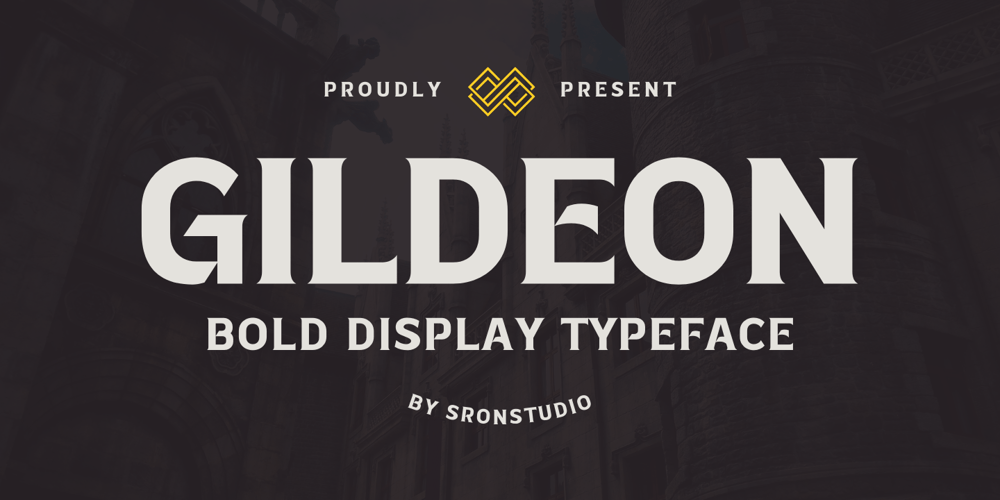
Gildeon Font Family was designed by Muhamad Yusron Billah and published by Sronstudio. Gildeon contains 1 styles and family package options. “Gildeon” is a bold serif display typeface that commands attention with its powerful letterforms. Designed for impactful statements and strong visual presence, this font strikes the perfect balance between boldness and sophistication. Whether used for headlines, posters, or branding, “Gildeon” stands out with its commanding strokes and confident design, making it the ideal choice for projects that demand a bold and assertive typographic style.Features:- Uppercase & Lowercase- Numeral & Punctuation- PUA Encoded- Multilingual support- Simple Installation- Work both on Mac and WindowsThank you very much ๐